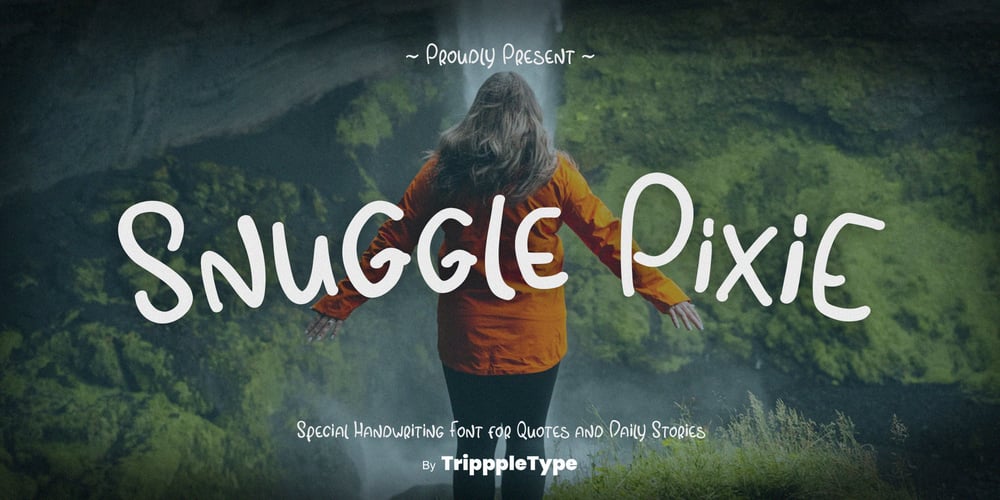
Snuggle Pixie Handwritten Font Family was designed by Kang Nur and published by TripppleType. Snuggle Pixie Handwritten contains 1 styles and family package options. Step into the whimsical world of Snuggle Pixie, a handwritten font designed to add a soft, magical touch to your everyday content. Whether you’re crafting motivational quotes for Instagram or creating enchanting captions for daily stories, this font brings a lighthearted and playful vibe that will resonate with your audience. Imagine adding a sprinkle of fairy dust to your words – it’s that kind of charm.Ready to bring more magic to your posts? Download Snuggle Pixie now and let your creativity shine with every stroke. Whether for personal projects or social media content, this font is the perfect way to express yourself with a touch of enchantment.